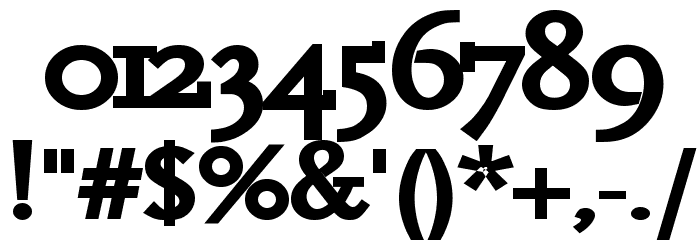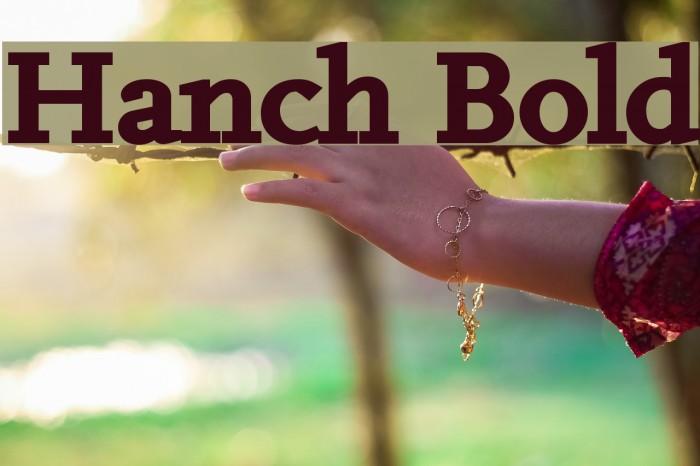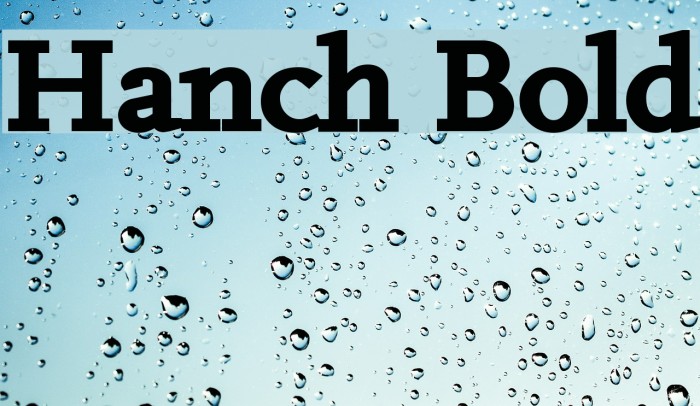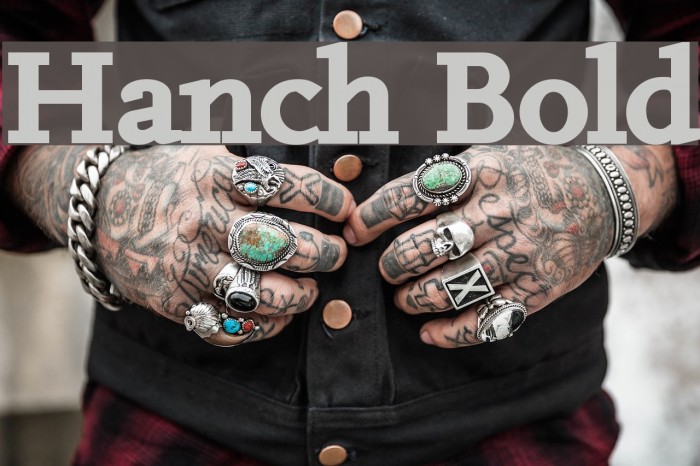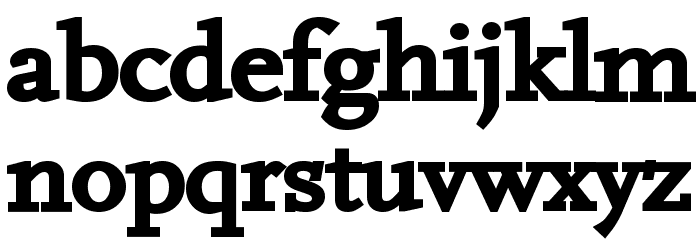
Hanch Bold Font
Hanch Bold Description
This font exhibits a bold and robust serif style, characterized by thick, strong strokes and prominent serifs. The uppercase letters are commanding and well-defined, while the lowercase letters maintain a consistent weight and structure, ensuring readability. The numerals are equally bold, with a uniform thickness that complements the overall design. Special characters are crafted with attention to detail, maintaining the font's bold aesthetic. The font's design is suitable for making a strong visual impact, with its high contrast and solid presence.
A bold serif font with strong strokes and high contrast, ideal for impactful designs from Uncategorized fonts.
- Proposed Projects: This font is perfect for headlines, posters, branding materials, and any project that requires a bold and authoritative typeface.
- Overall Style: Classic